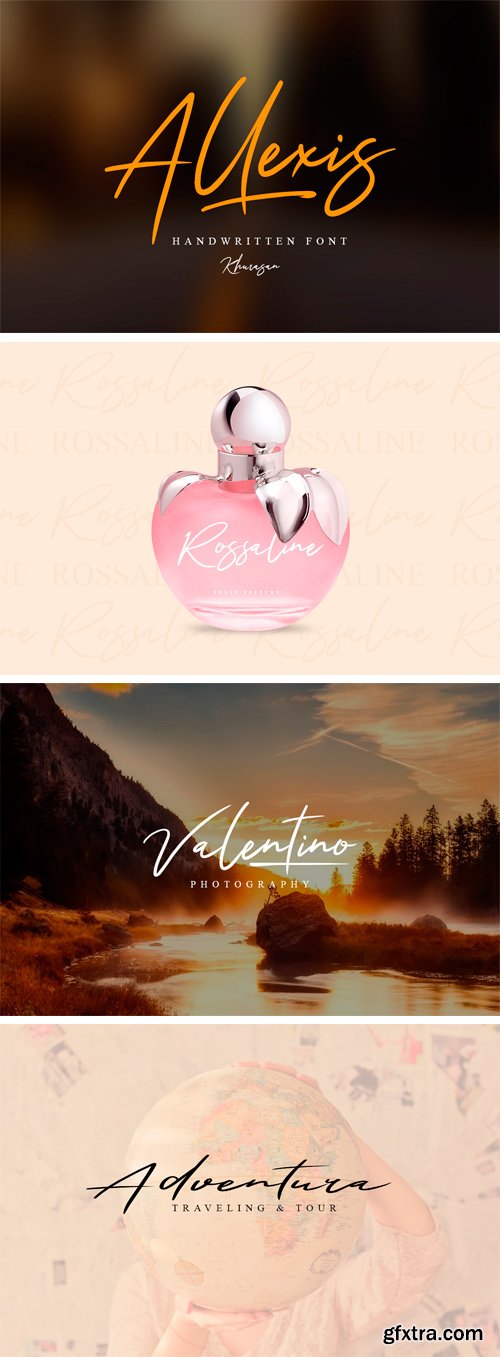
Introducing Allexis Signature Typeface - a font that is very fresh and unique style handmade. Allexis Signature Typeface is perfectly suited to logo, stationery, poster, apparel, branding, wedding invitation, card, tagline, layout design, and much more!